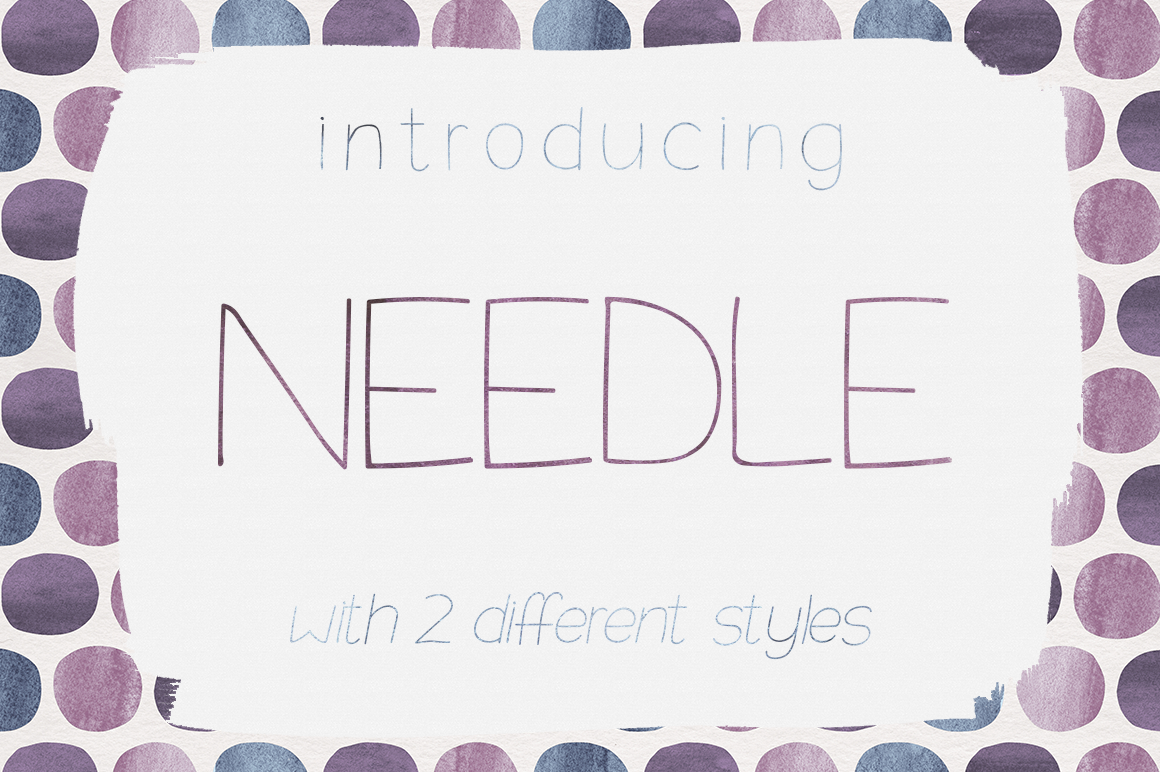
Needle Sans Serif Font
This is Needle! A delicate, hand drawn font that goes with everything!
Perfect for branding, logos, text and invitation.
It comes in 2 styles: regular and slant, and includes multilingual support.